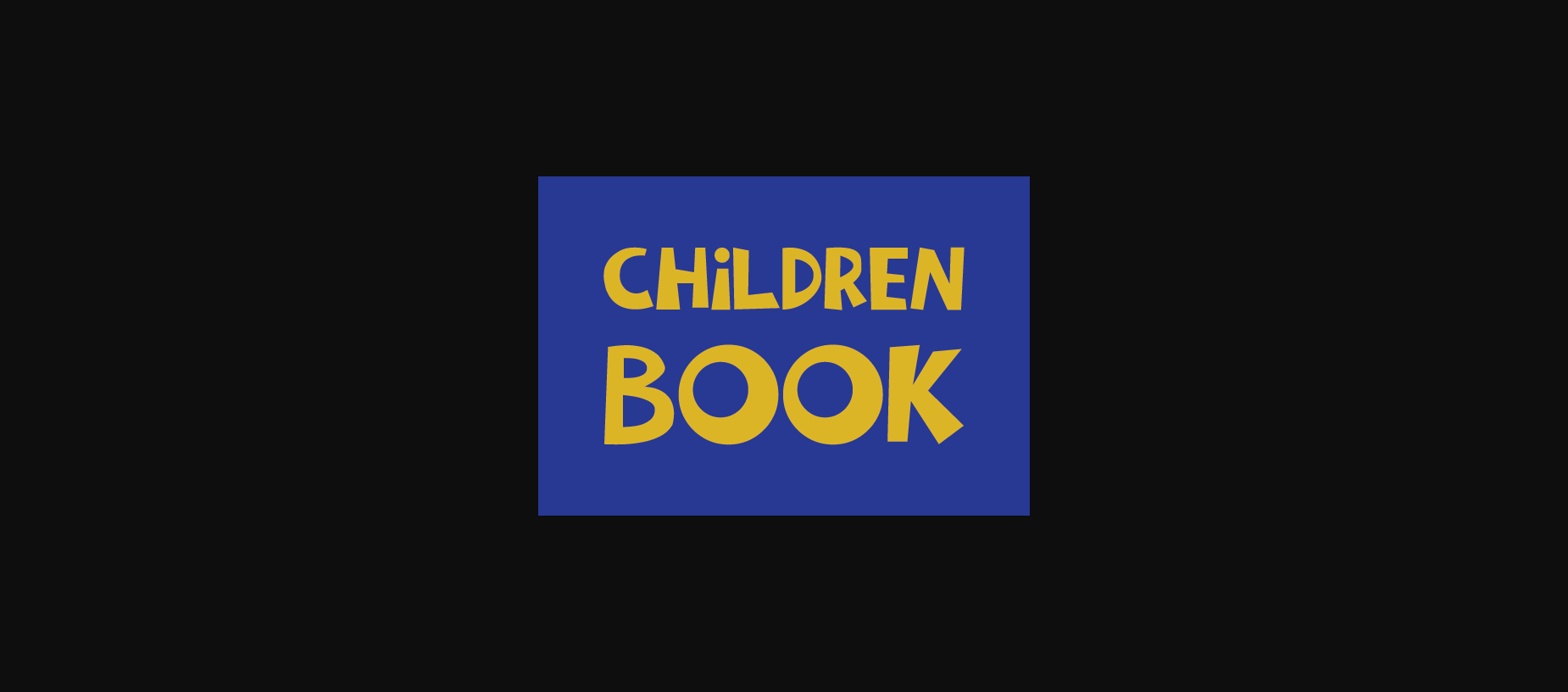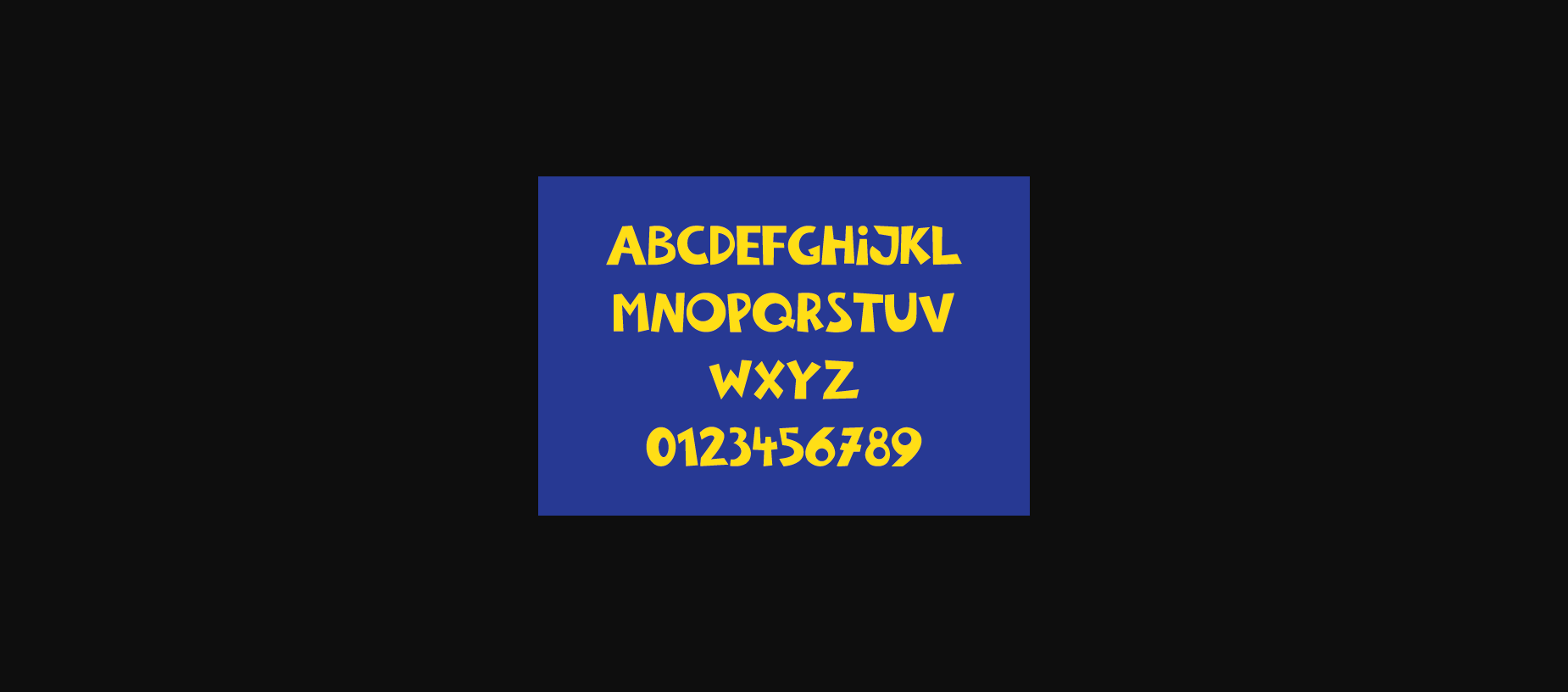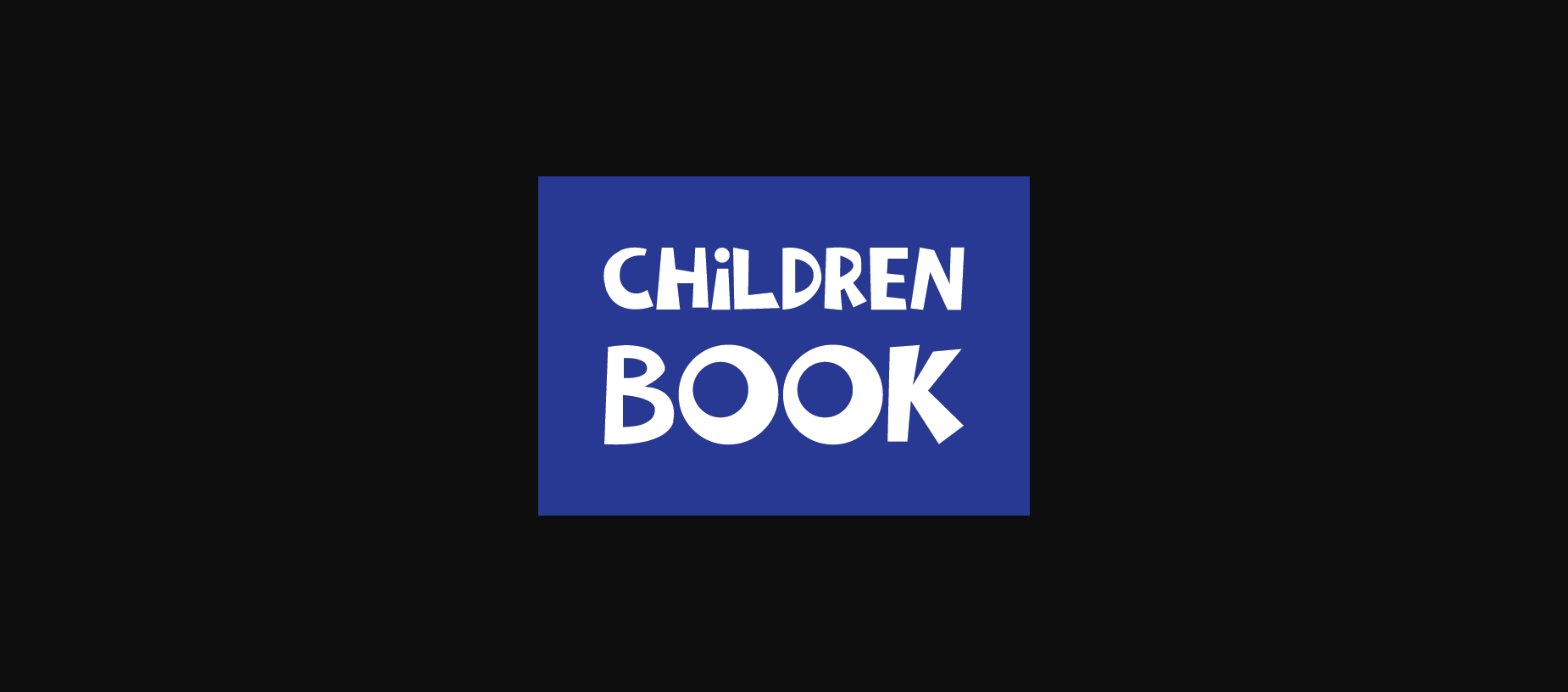
Children Book Font
About Children Book Font
Children Book Font is a typeface designed with a playful and childlike aesthetic. It features a set of whimsical, cheerful characters, often reminiscent of like handwritten letters or doodles made for children.